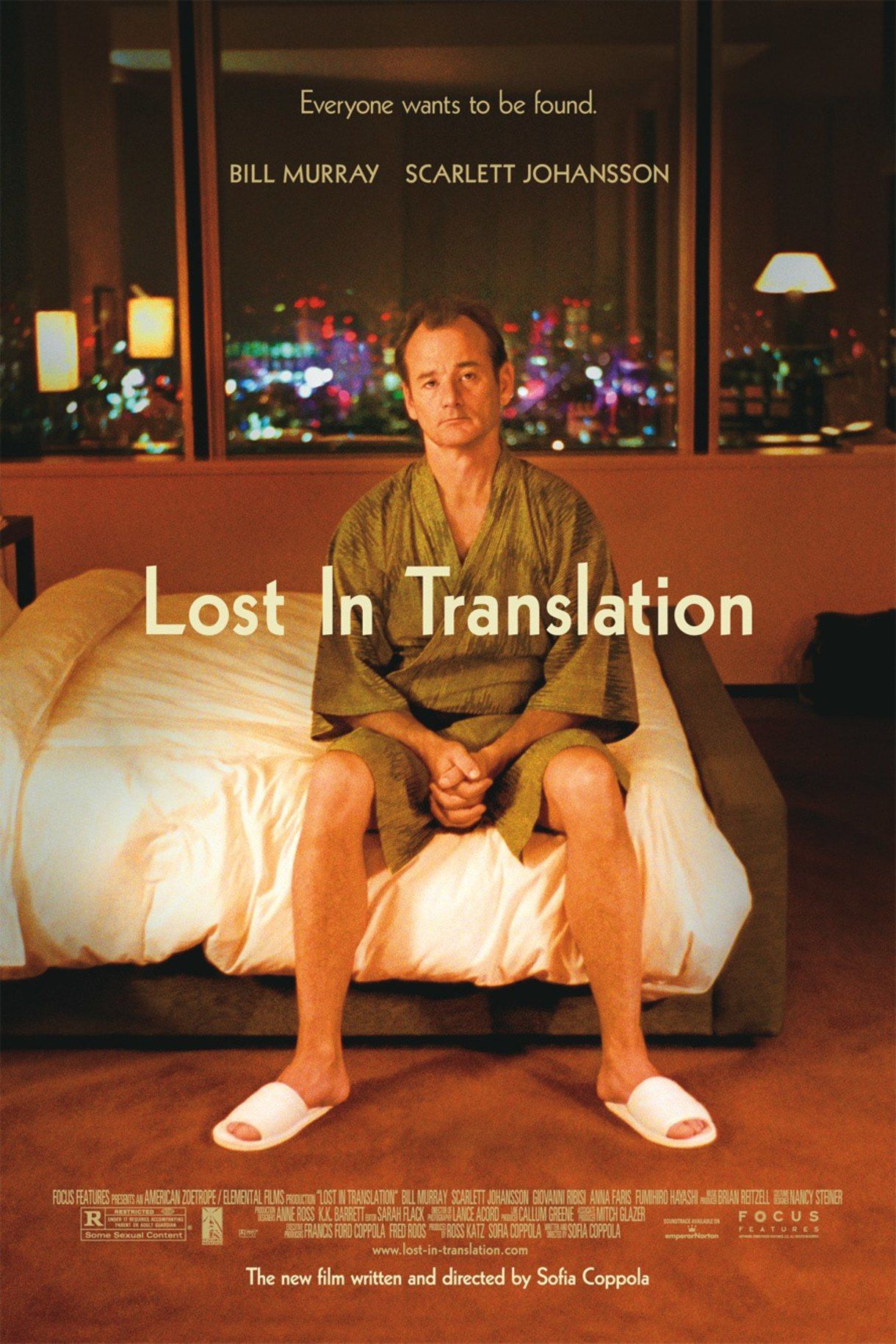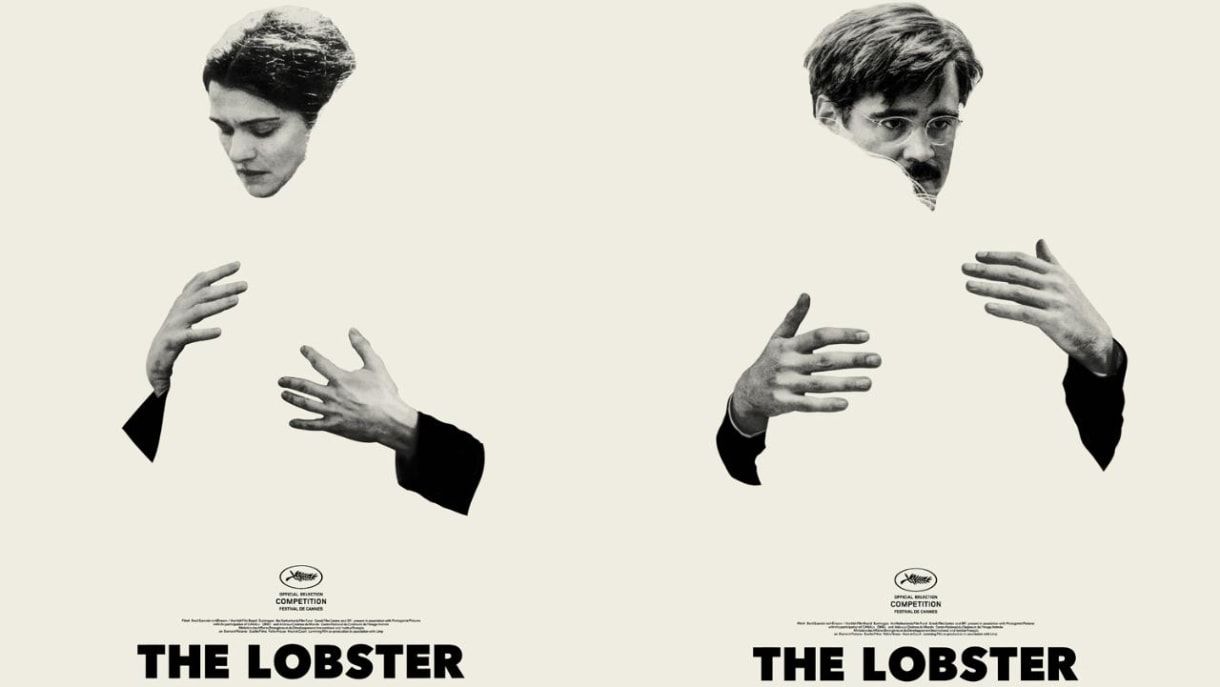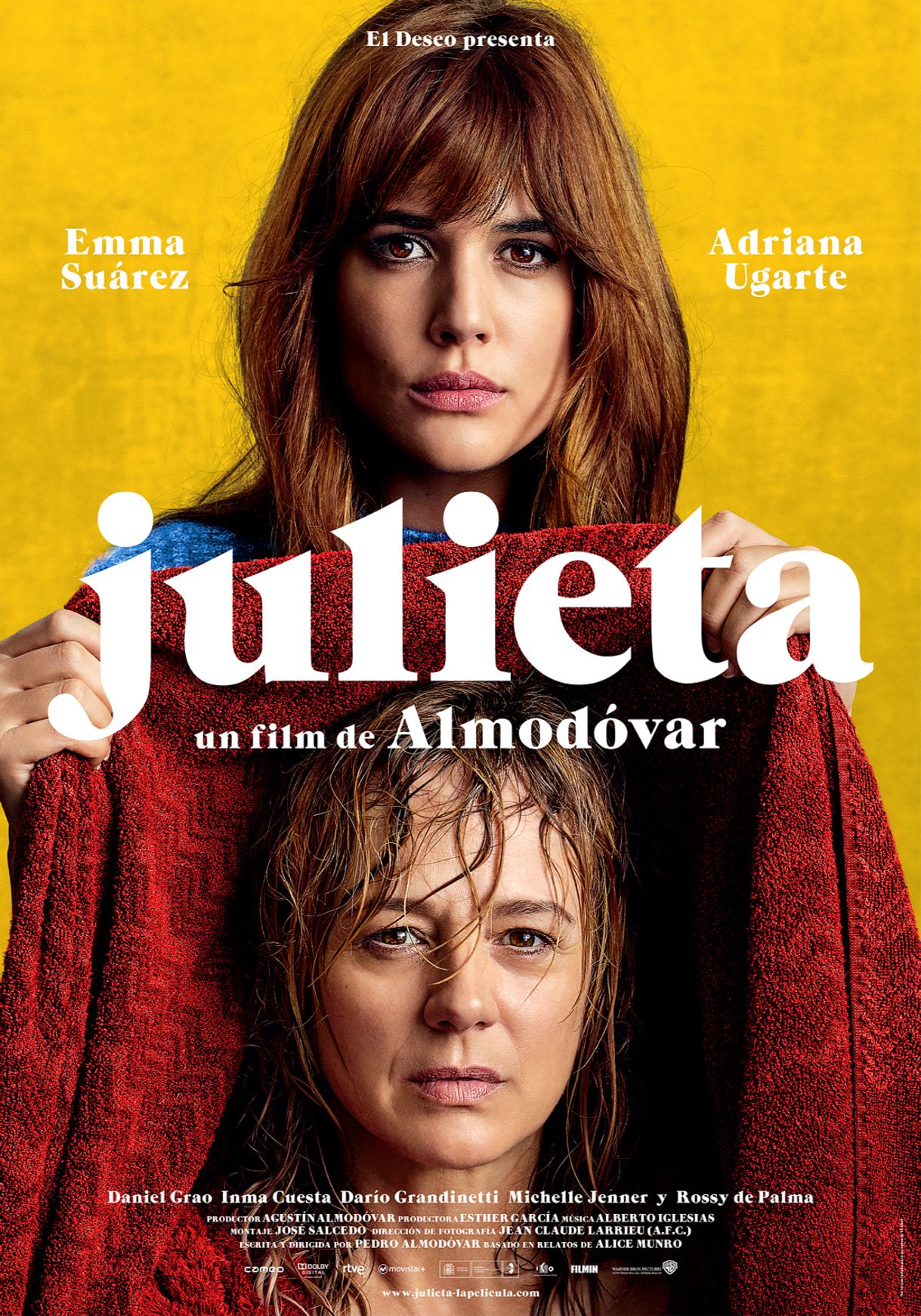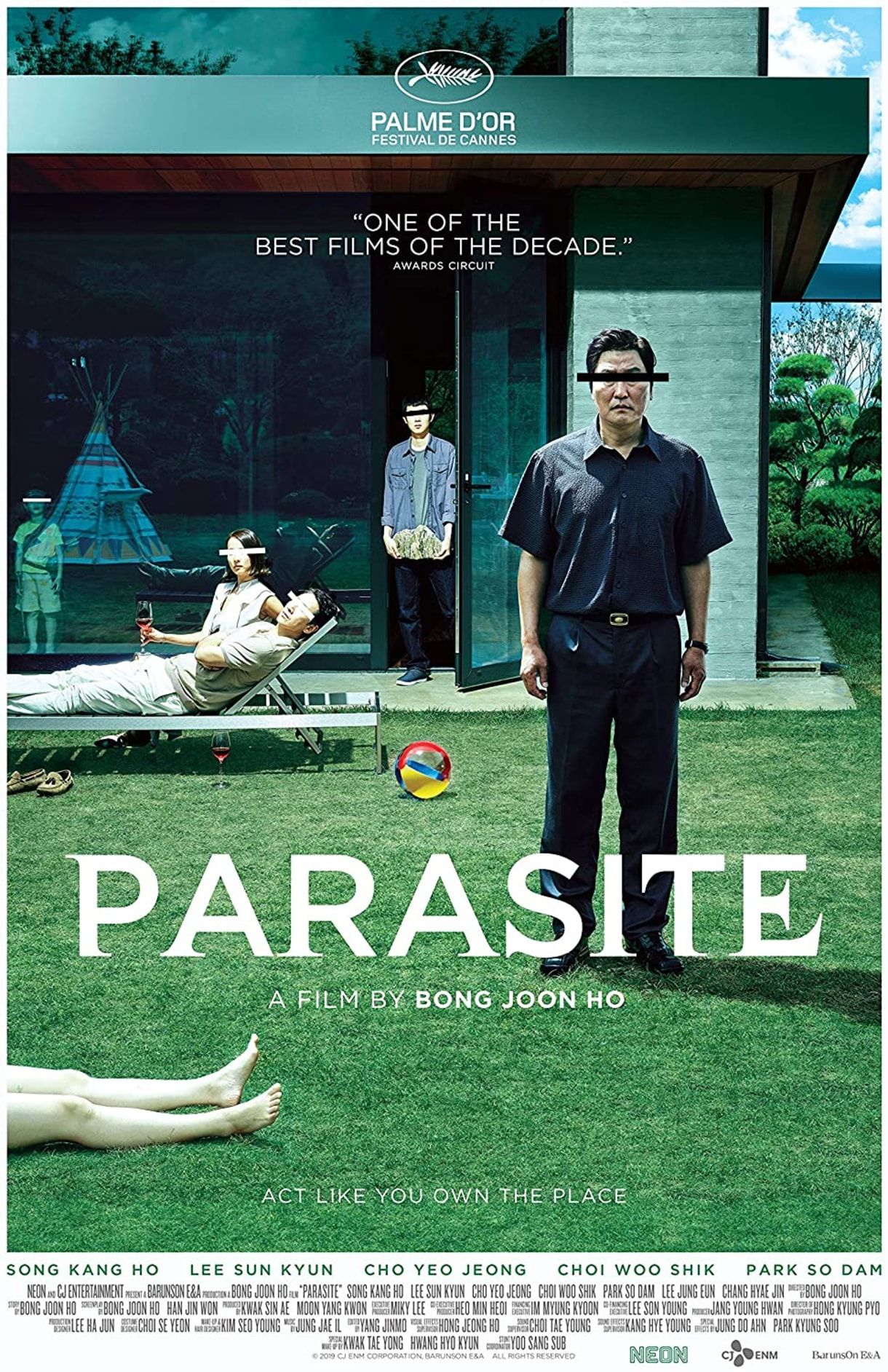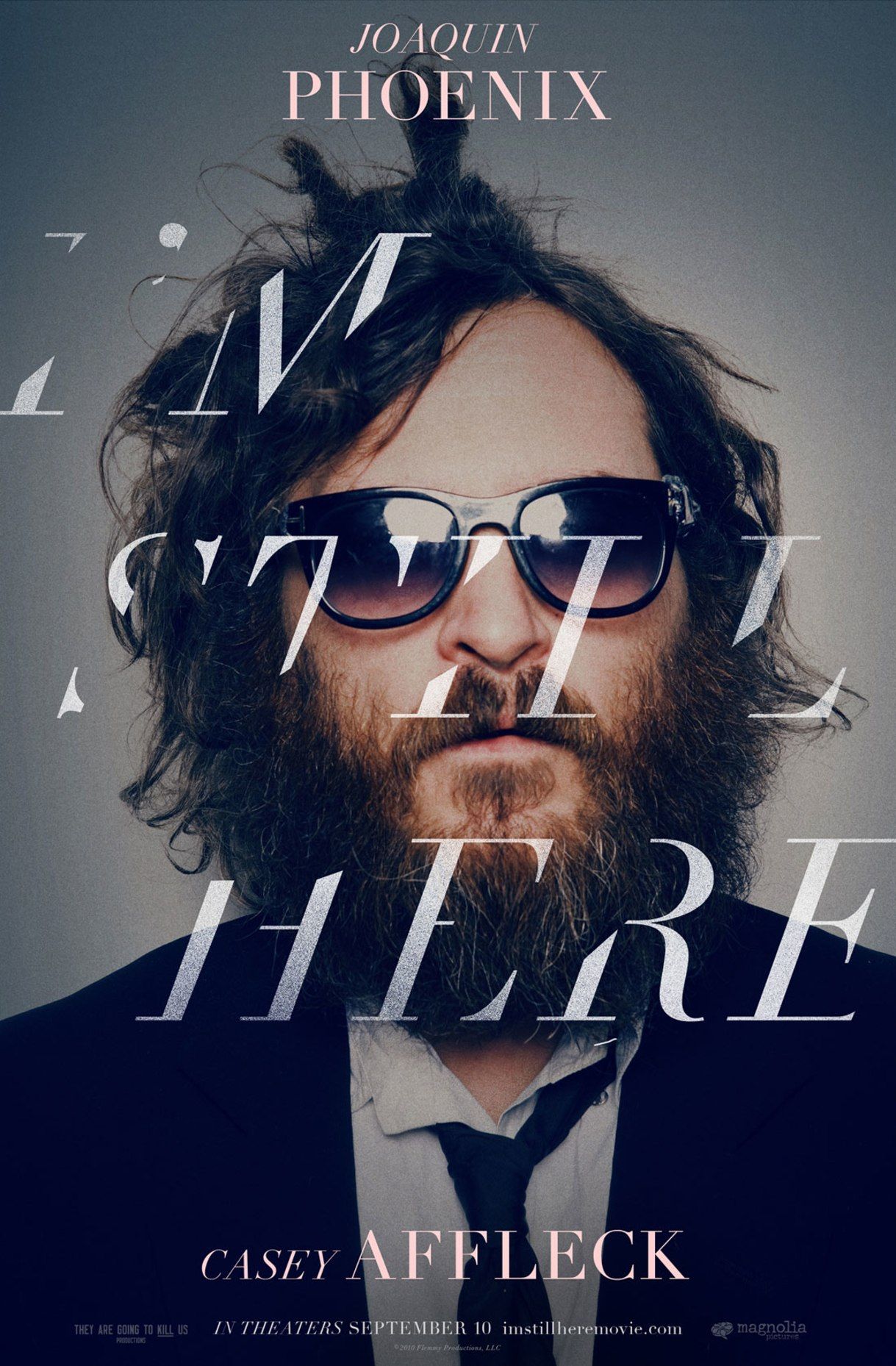
10 Typefaces From Movies
Discover typefaces used in movie posters, promotional materials, and title sequences
If you’re a fan of typography, you’re sure to love seeing it on the big screen. From being featured in trailers to staring back at us on movie posters, typography captivates our attention and plays a key role in convincing us that we want to see a film.
Here we have put together a list of 10 movies that feature outstanding examples of typography. We share the names of the designers and agencies who worked on them, as well as which fonts they used. It’s important to point out that in some cases the typefaces were slightly modified.
Vertigo (1958)
The legendary designer Saul Bass created the titles for this spectacular film from Alfred Hitchcock. Just like in many of his other creations, the credits are a fine example of creating a perfect harmony between the typeface and footage, which only a genius like Bass can achieve.
These credits laid the foundations for a new school of movie title design. The spiral sequence was created by John Whitney, a pioneer of computer animation, under the direction of Bass.
Main Typefaces: Claredom and News Gothic.
The Grand Budapest Hotel (2014)
Wes Anderson received international acclaim for this film, which stood out for its production design, strongly influenced by typography.
The posters–as well as packages, stamps, passports, newspapers, menus, and many other props–were designed by Annie Atkins.
Main Typeface: Archer.
Other typefaces used in the movie: Beaufort, FF Din, Old English, Münchner Feature, Trajan, Russian and Cheltenham.
Lost In Translation (2003)
In this timeless comedy-drama from Sofia Coppola, Corey Holms used a plain and simple typeface for the poster and promotional material, very much in-tune with the characters’ introspective experience during their stay in Japan.
Main Typeface: Kabel.
The Lobster (2015)
This acclaimed and strange film from Yorgos Lanthimos was promoted with minimalist posters created by Vasilis Marmatakis.
Main Typeface: Avenir Next.
Inherent Vice (2014)
This film from Paul Thomas Anderson stands out for its promotional posters and title sequence. Instantly the neon colors transport us to Los Angeles in the 70s.
The design was handled by BLT Communications and the designers Tal Goretsky, Darshan Zenith, Darren Haggar, Dustin Stanton, and Steven Chorney.
Main Typefaces: Drescher Grotesk, Rolling Pen, Ne10, Sneaker Script, ITC Serif Gothic.
Julieta (2016)
This heart-rendering film from Pedro Almodóvar was nominated for several international awards. As is often the case in his work, Almodóvar submerges us into a predominantly female universe that presents a fresh take on motherhood.
The posters and credits were designed by the Barfutura agency.
Main Typeface: ITC Grouch.
The Big Lebowski (1998)
This film by the Coen brothers brought us some of the most celebrated characters and quotes in film history.
The movie is also praised for its incredible opening and closing credits, which channel the tone of the film and reference some of the most important sequences. The designers who worked on this film were Big Film Design and Randall Balsmeyer.
Main Typefaces: Magneto, Mesquite, Monoline Script, Berthold Block.
Parasite (2019)
Without a doubt the most talk-about film of 2019, Parasite was written and directed by Bon Joon-ho.
The credits and posters use a modest and classic design style, featuring timeless fonts. The designer is uncredited.
Main Typefaces: Gotham, Garamond, LT Didot.
I’m Still Here (2010)
This mockumentary directed by Casey Affleck, in which Joaquin Phoenix announces he is retiring from acting, fascinated filmgoers.
The poster also made its mark on popular culture, and we saw lots of projects try to recreate the sharp italics. The poster (and the titles) were created by Neil Kellerhouse, Michael Muller, and Erik Buckham.
Main Typeface: HTF Didot.
Jackie Brown (1997)
This film from Quentin Tarantino pays homage to the 70s, which is why the typography also transports you to a funky universe.
Pacific Title and Mirage used fonts that were created in the 70s for the posters, promotional material, and titles.
Main Typefaces: ITC Tiffany, Benguiat Caslon, Goudy Heavy.